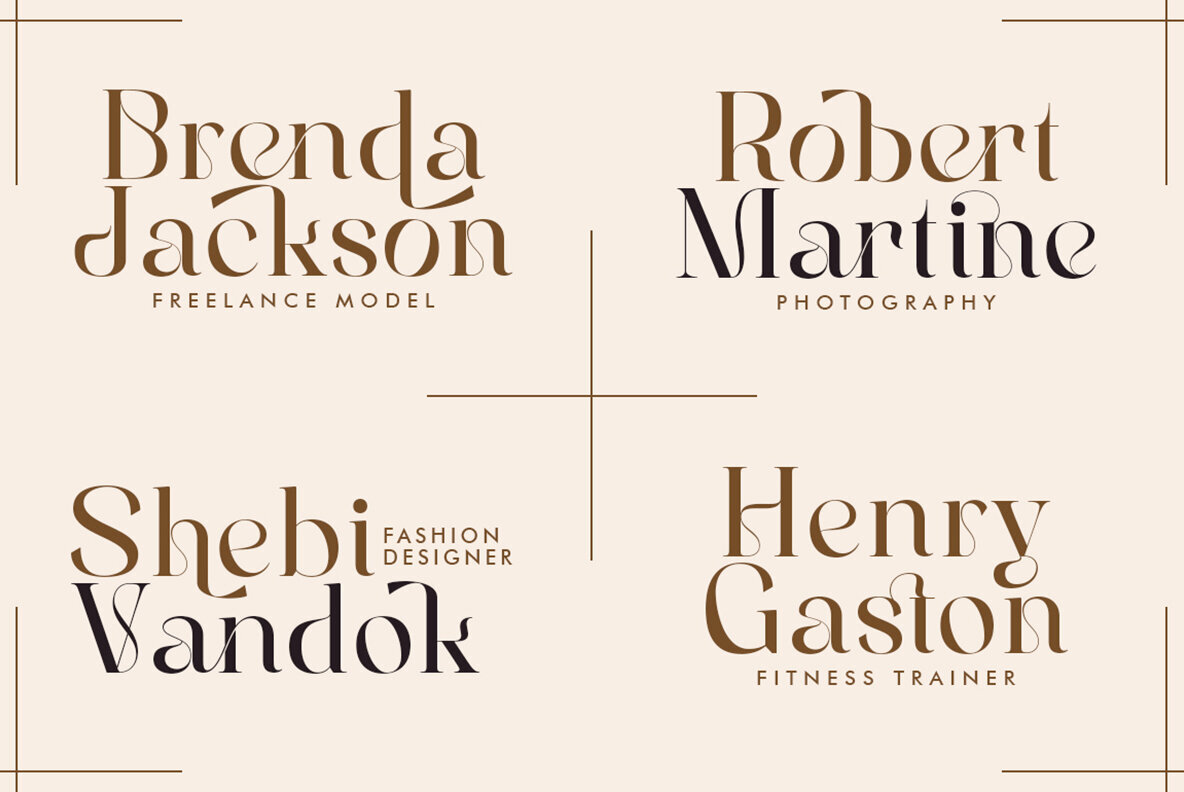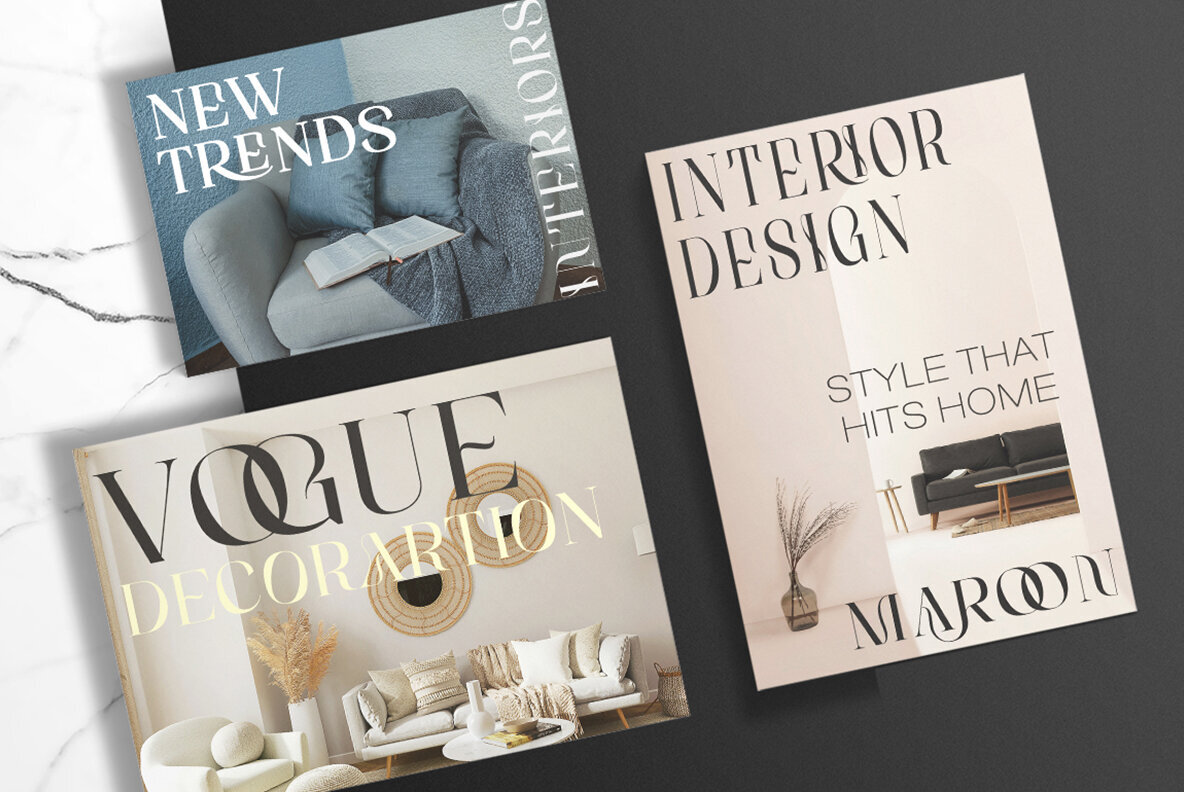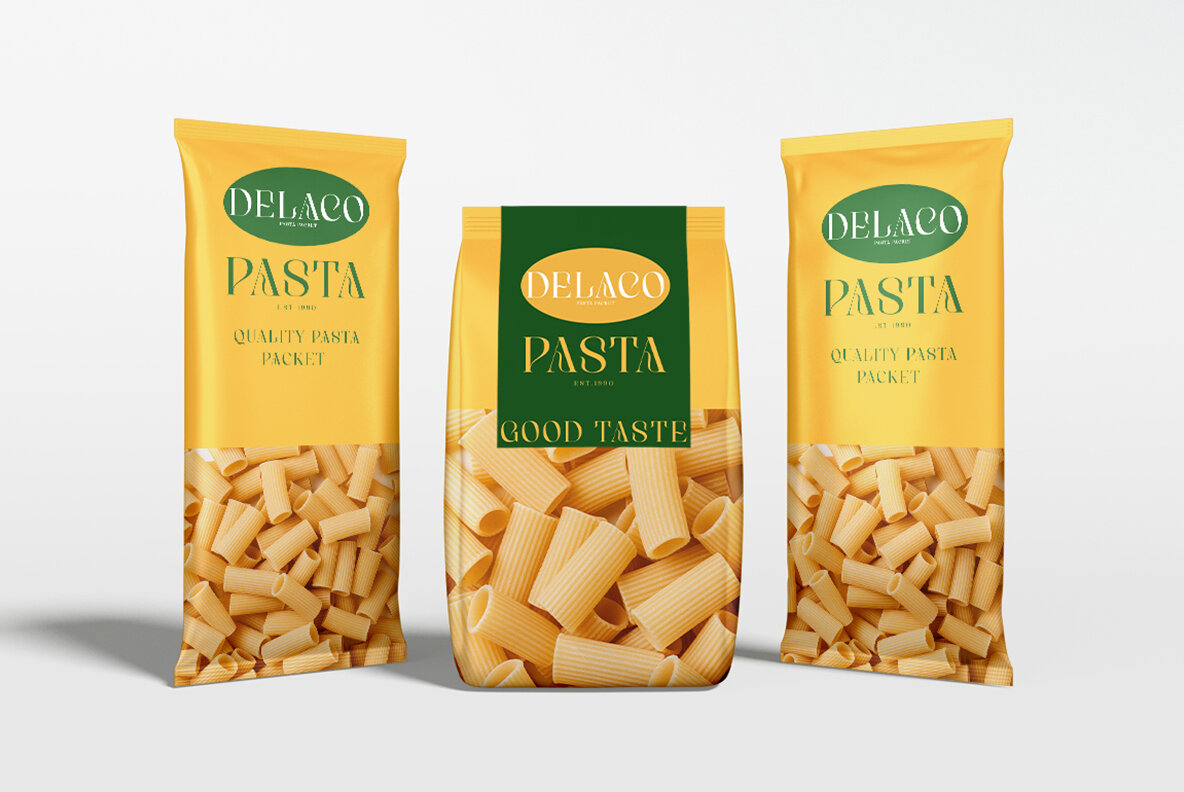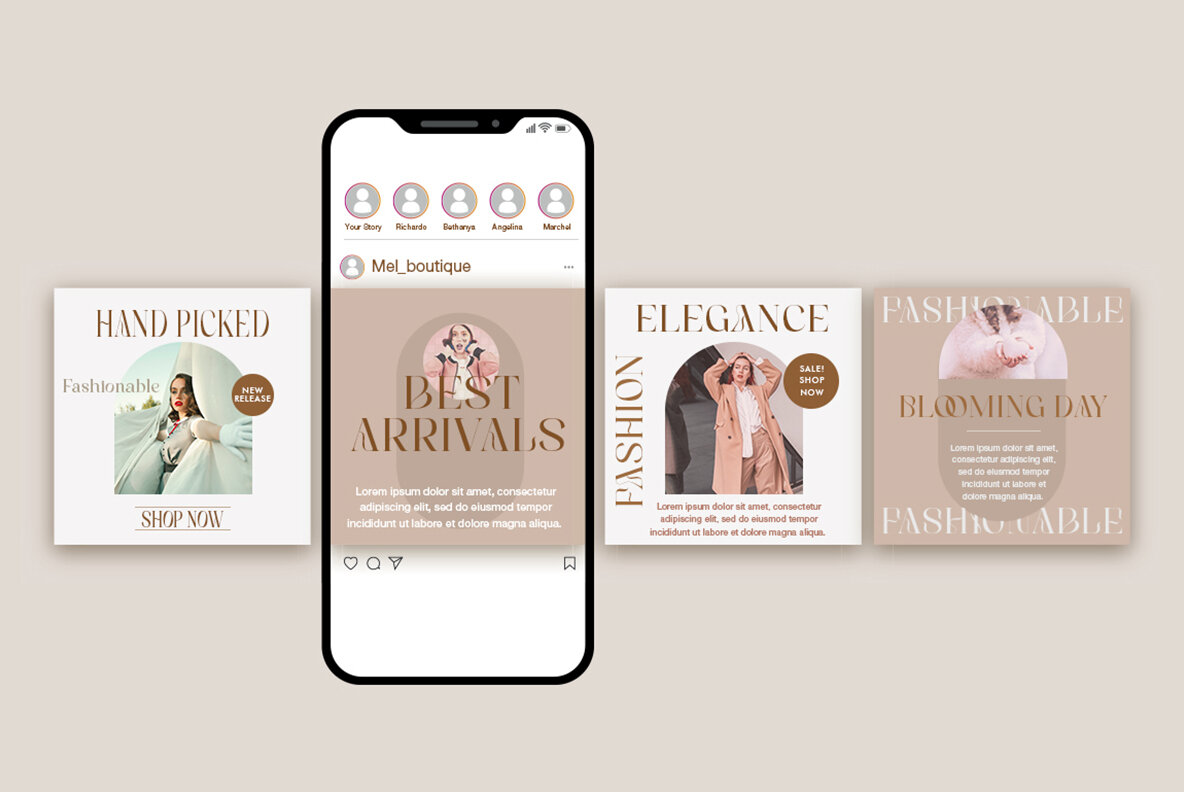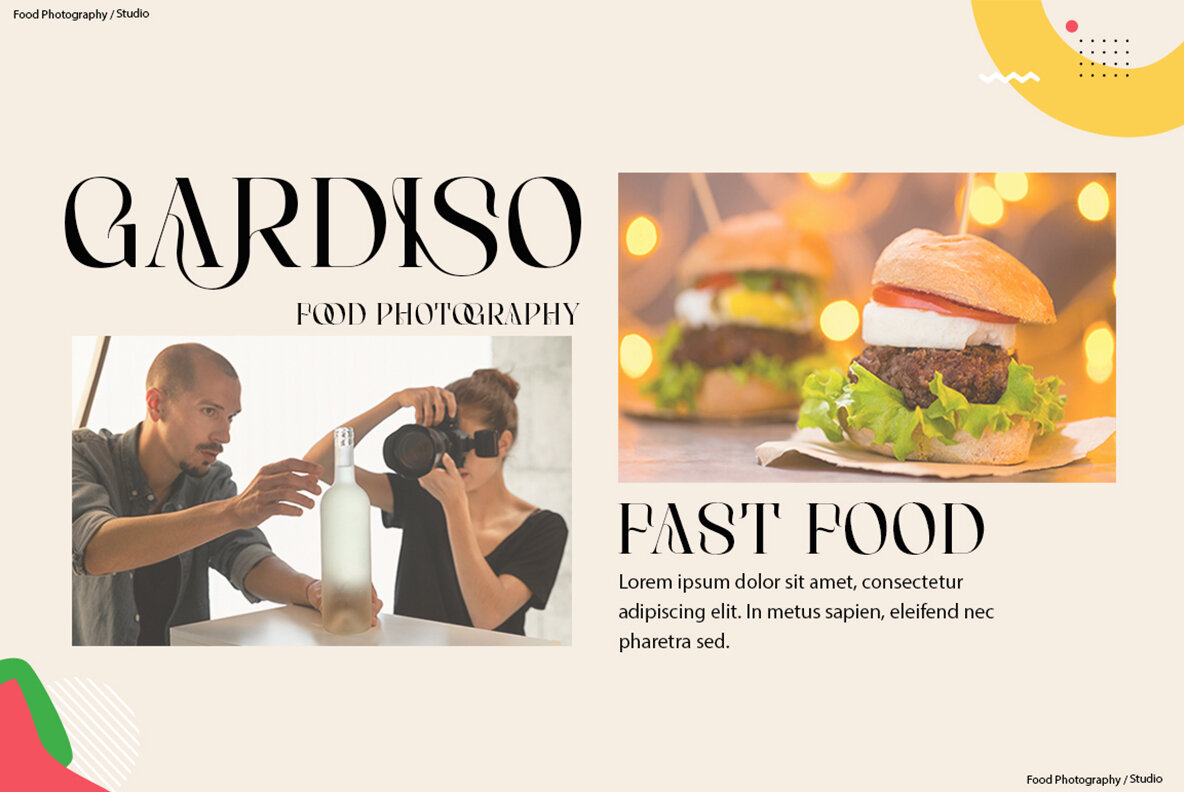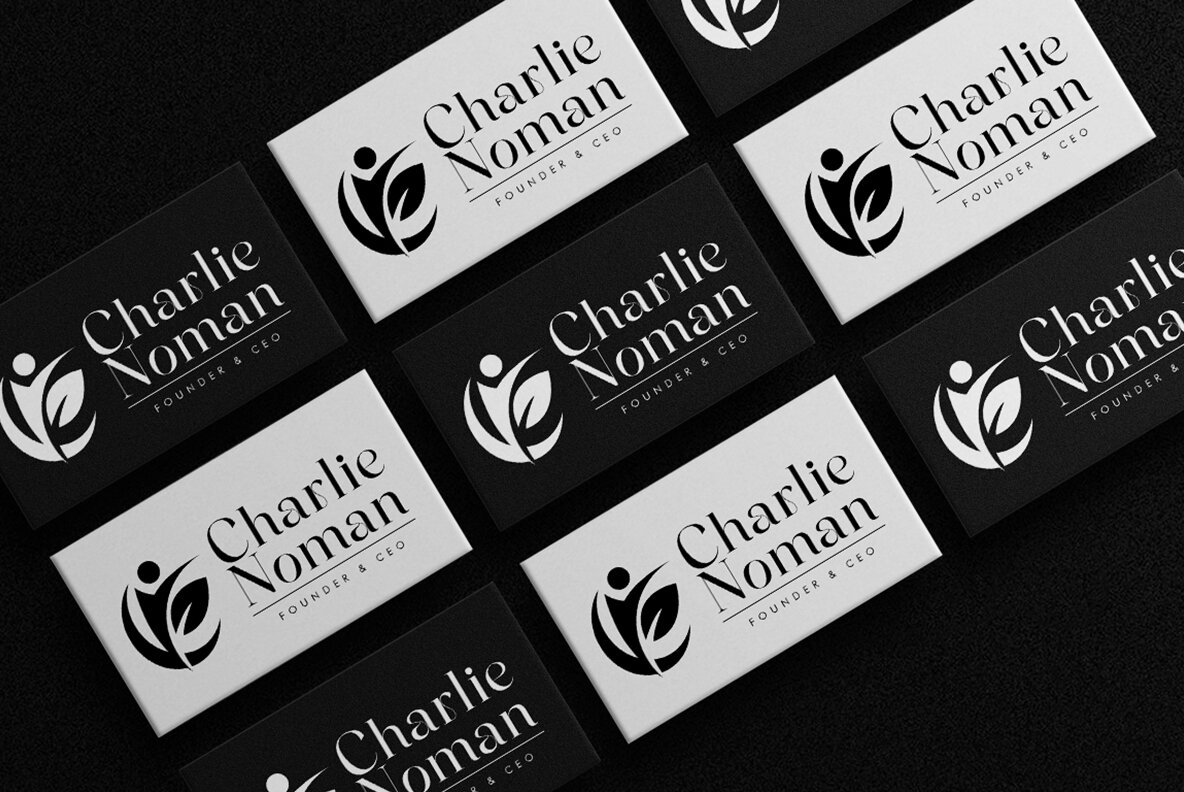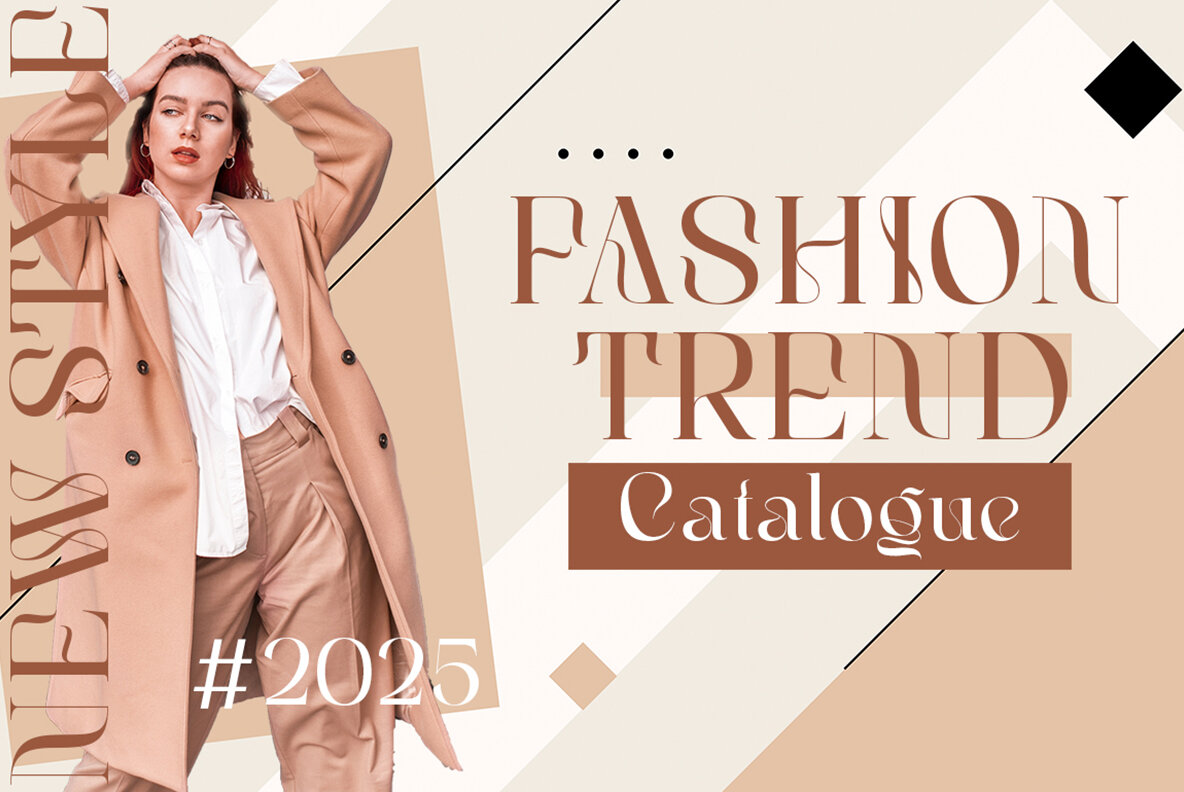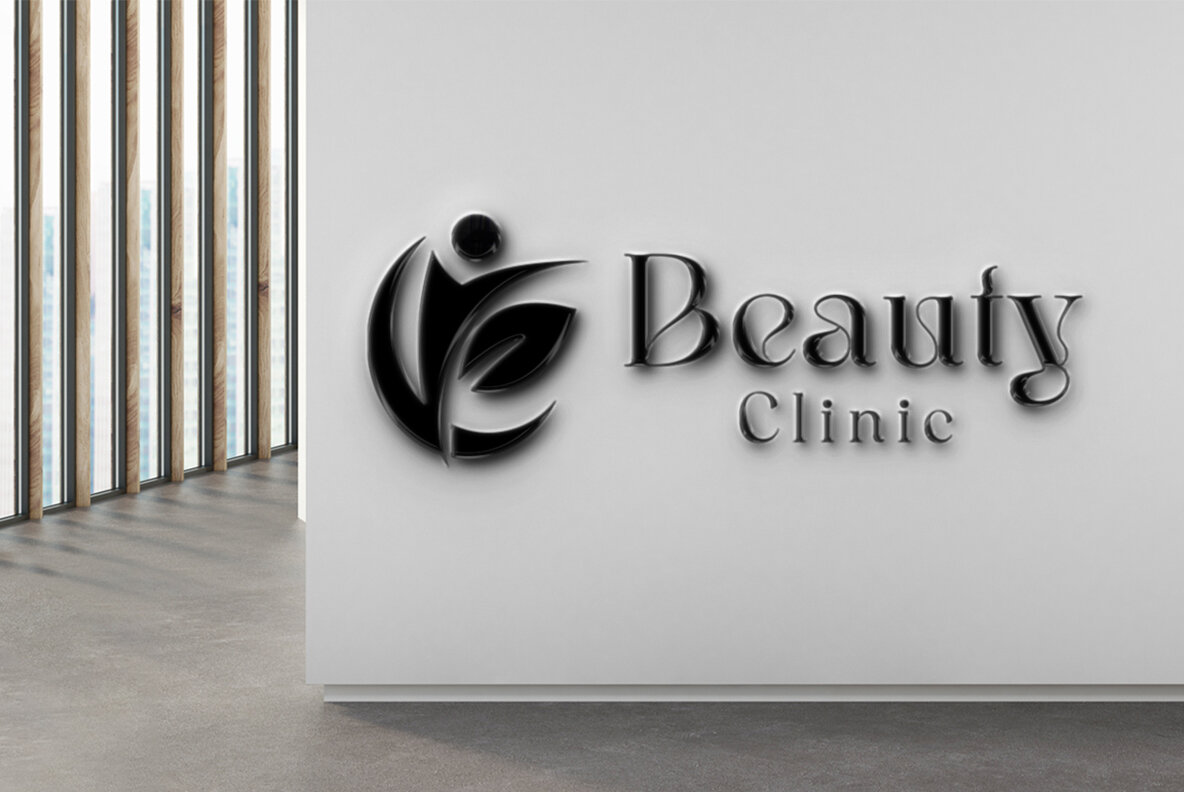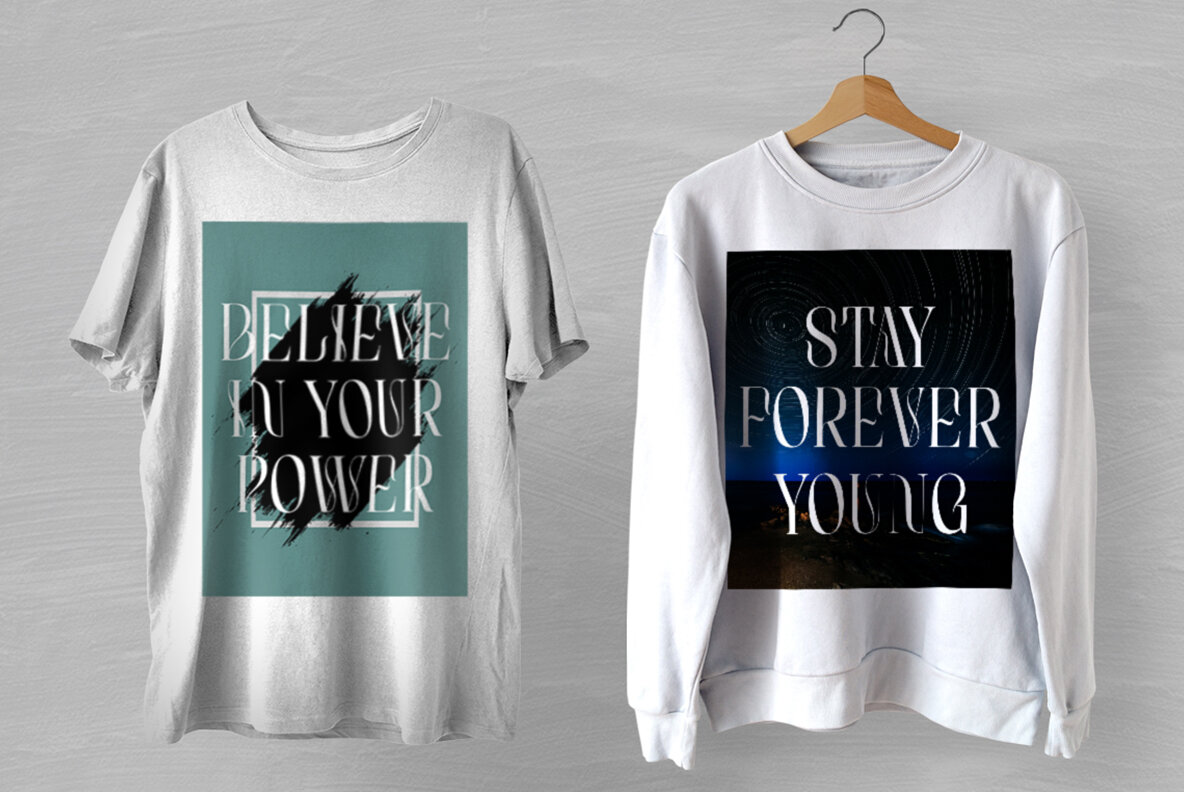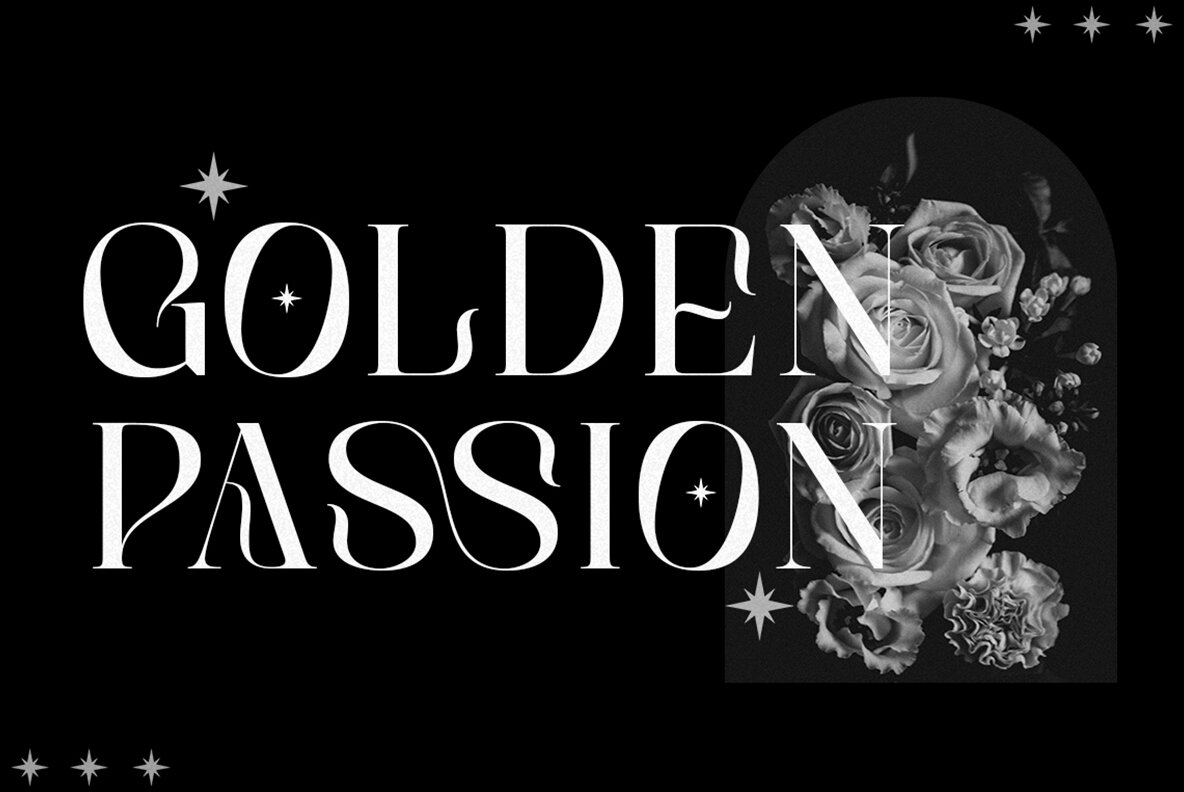
The Roman Historia Font
Introducing The Roman Historia, a stylish and unique serif font that will elevate your design projects to the next level. With its premium quality and luxurious feel, this font is carefully crafted to provide a sophisticated look to your designs. The Roman Historia features a full set of uppercase and lowercase letters, alternative characters, ligatures, punctuation, numbers, and multilingual support, making it versatile for any design project.
This font is ideal for branding, logos, headlines, titles, magazines, name cards, labels, product packaging, book titles, movie titles, fashion magazines, and more.